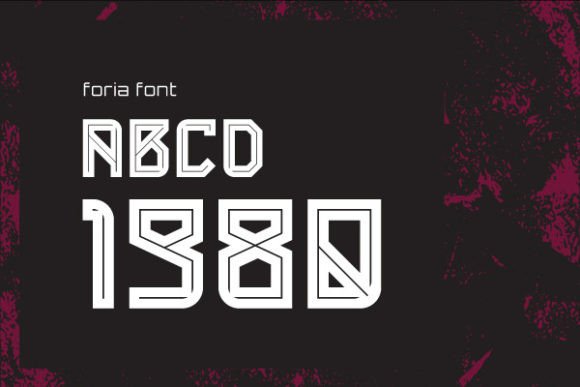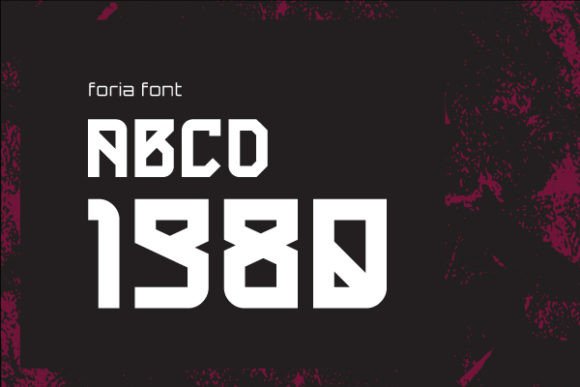
Unlocking Creativity with Foria Font
Have you ever stared at a blank canvas, searching for the perfect font to bring your creative vision to life? The frustration is real, but what if I told you that the solution is just a click away? Introducing Foria Font, a sleek and modern all-caps display font that’s sure to elevate your design projects.
With its subtle Gothic flair, Foria Font adds a touch of sophistication to any creative endeavor. Whether you’re working on a logo, poster, or digital graphics, this font is an invaluable design resource that will take your work to the next level. Plus, with its transparent background, you can easily customize it to fit your project’s unique needs. Download Foria Font for free and experience the difference for yourself.
- Unique characteristics include a modern and sleek aesthetic, ideal for contemporary design projects
Honest Review: Foria Font
I recently came across Foria Font and was excited to give it a try for my next creative project. As a designer, I’m always on the lookout for high-quality design resources that can elevate my work.
Here are some pros and cons of using Foria Font:
- ✨ Foria Font offers a wide range of elegant and modern designs that can suit various creative projects.
- ✨ Foria Font comes with a transparent background, making it easy to customize and use in various design contexts.
- ⚠️ Foria Font may not be suitable for complex or professional design projects, as it’s a free resource.
- ⚠️ The font may not be as versatile as some other high-end design resources, limiting its use in certain creative contexts.
Overall, I’m impressed with Foria Font’s potential and would recommend it for designers looking for a free, high-quality design resource for their next creative project.
Tips for Getting the Most Out of Foria Font
For the best results, use Foria Font in conjunction with other high-quality design resources. Experiment with different font sizes and styles to find the perfect look for your creative project.
Common Use Cases for Foria Font
Foria Font is perfect for use in logos, business cards, and other design projects where a high-quality, transparent background font is needed. It’s also great for use in creative projects such as infographics, posters, and social media graphics.